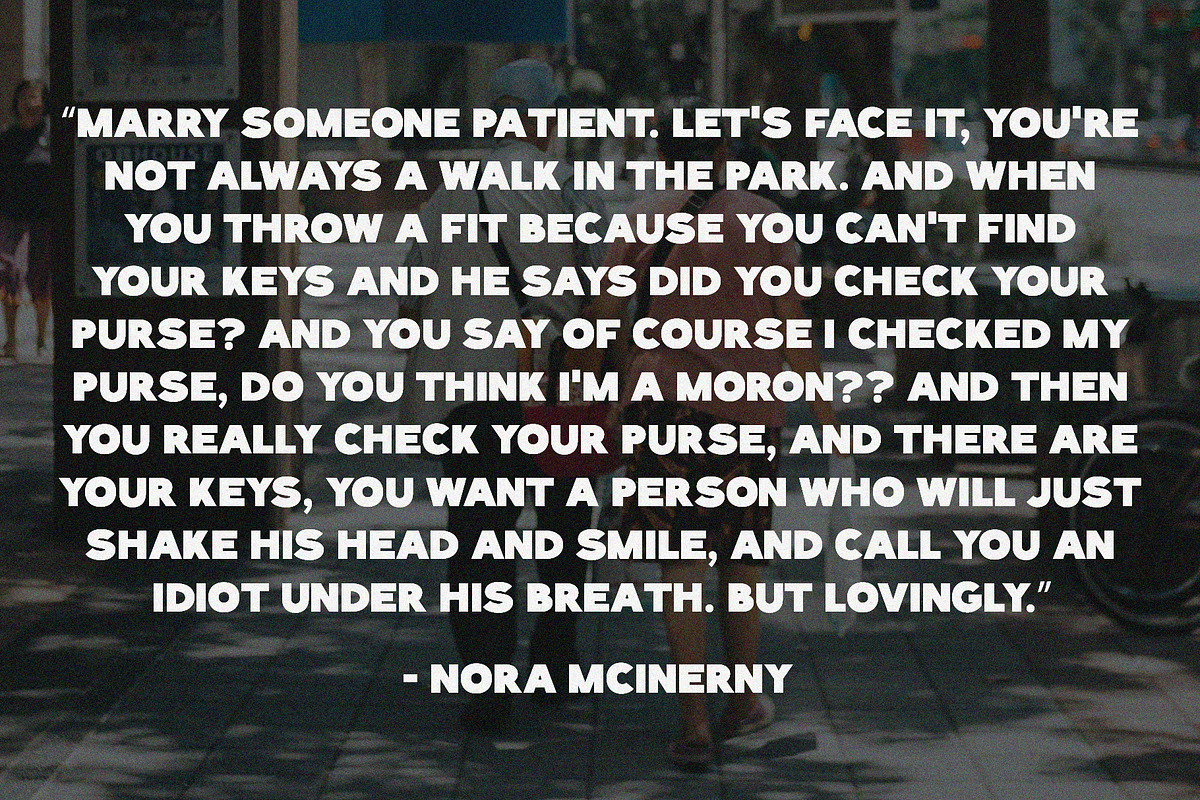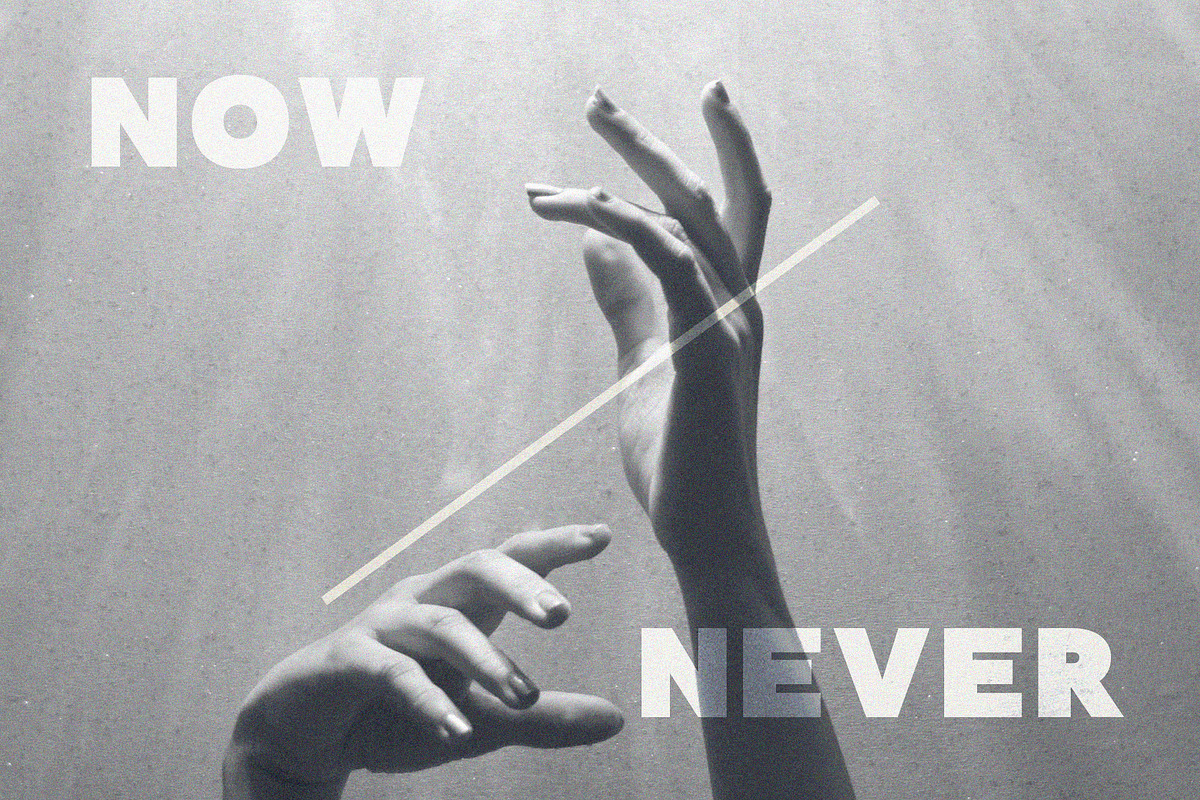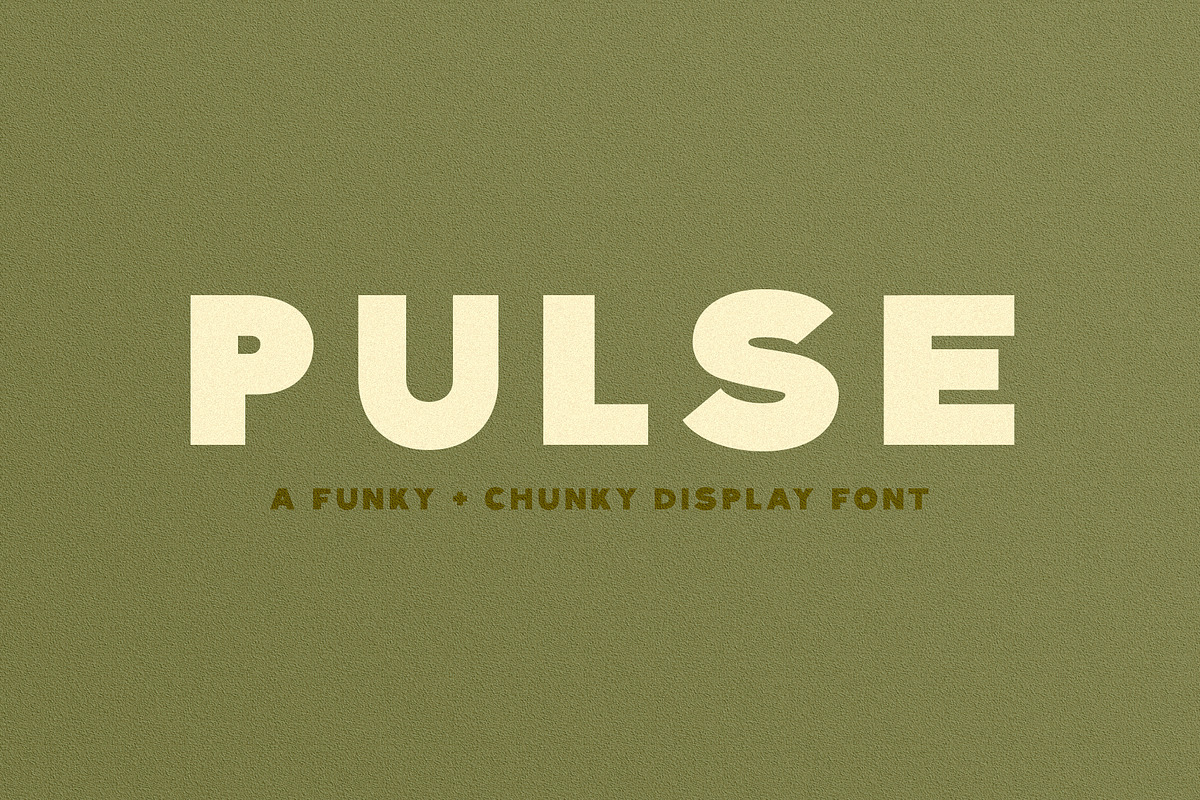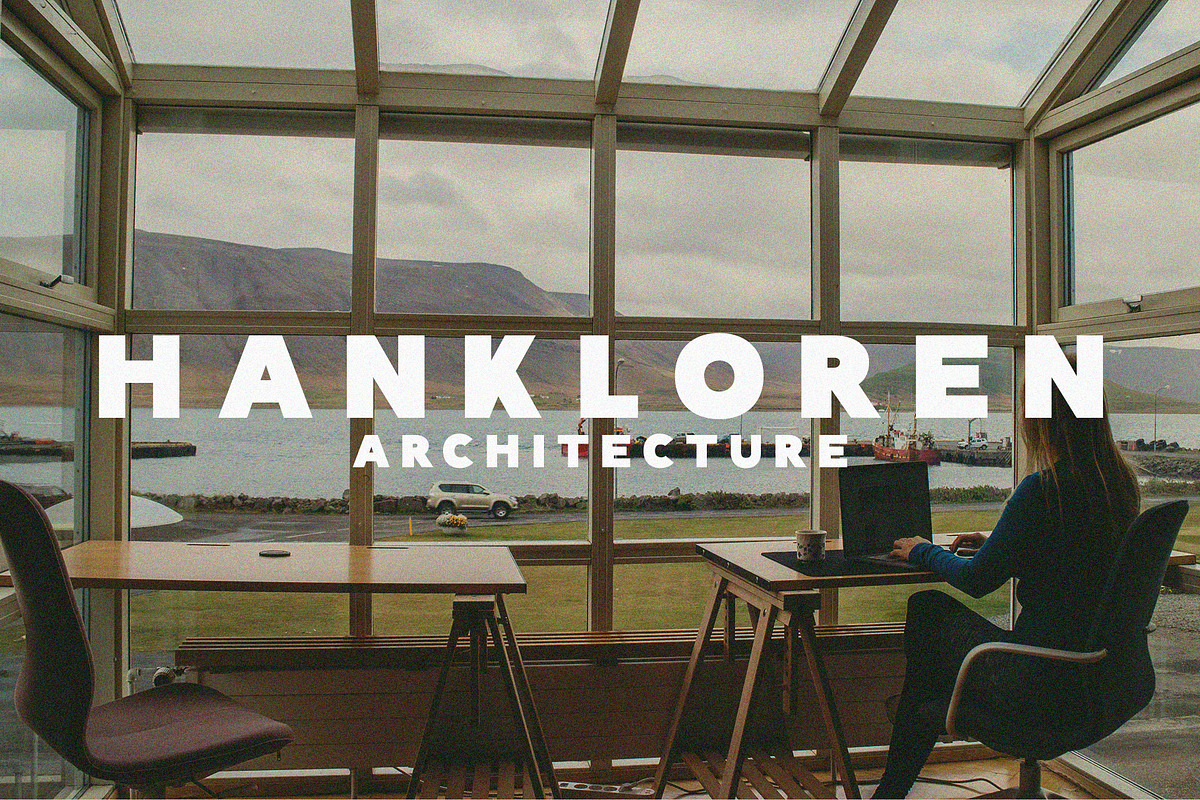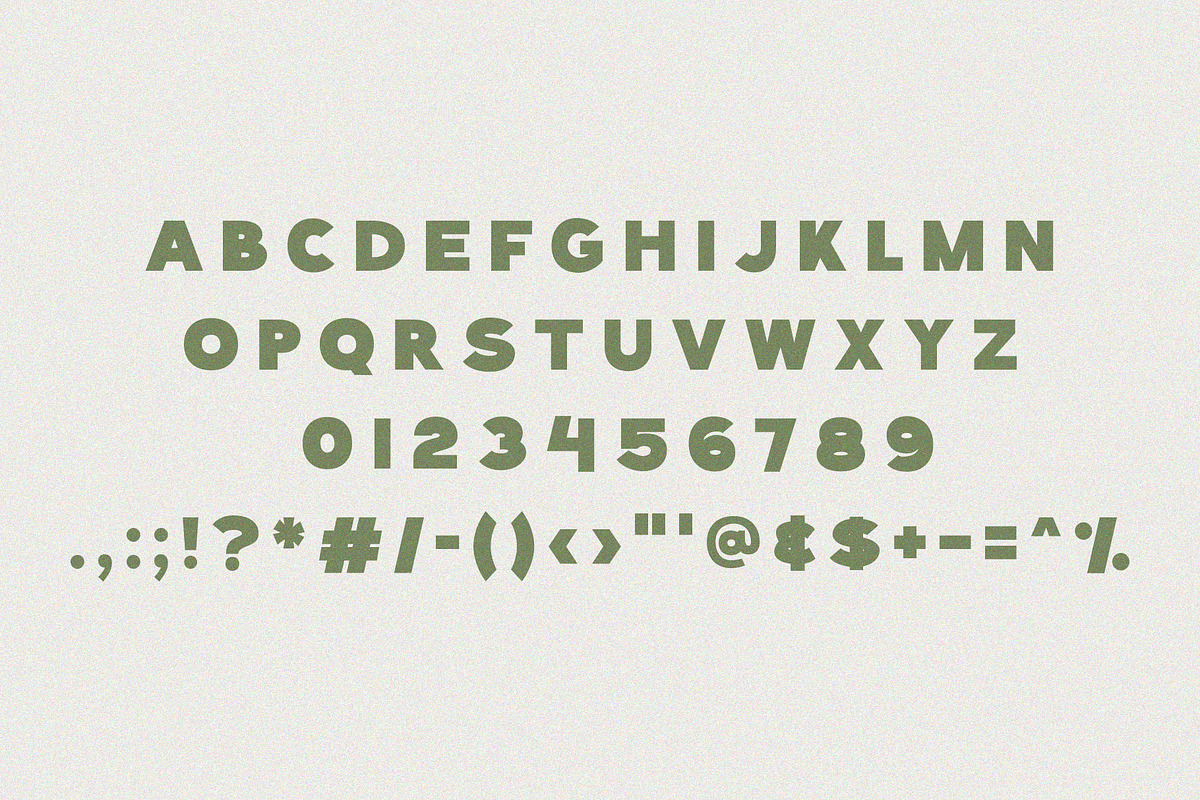
Pulse | Funky + Chunky Display
Meet Pulse—a modern display font that's a little bit chunky and a lotta bit funky. Can you catch the subtleties in the letters? It's a perfect display font for quotes, logos, social media and more.